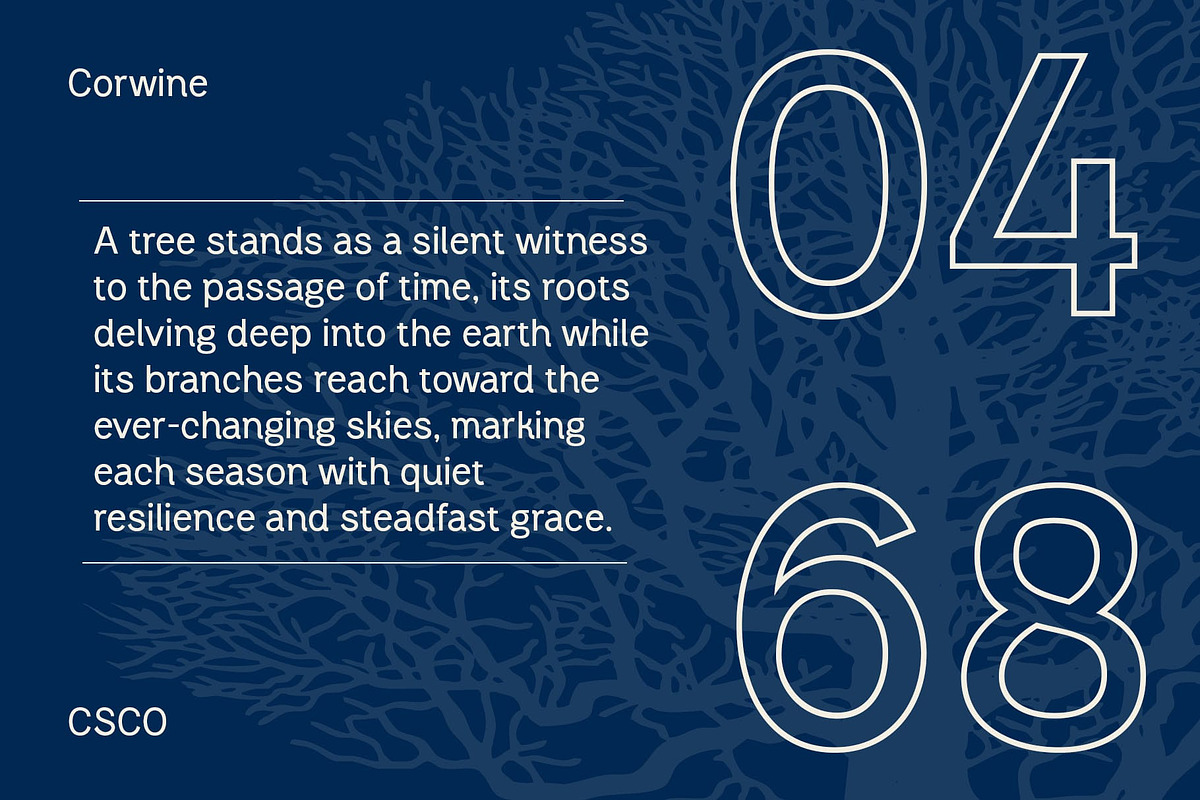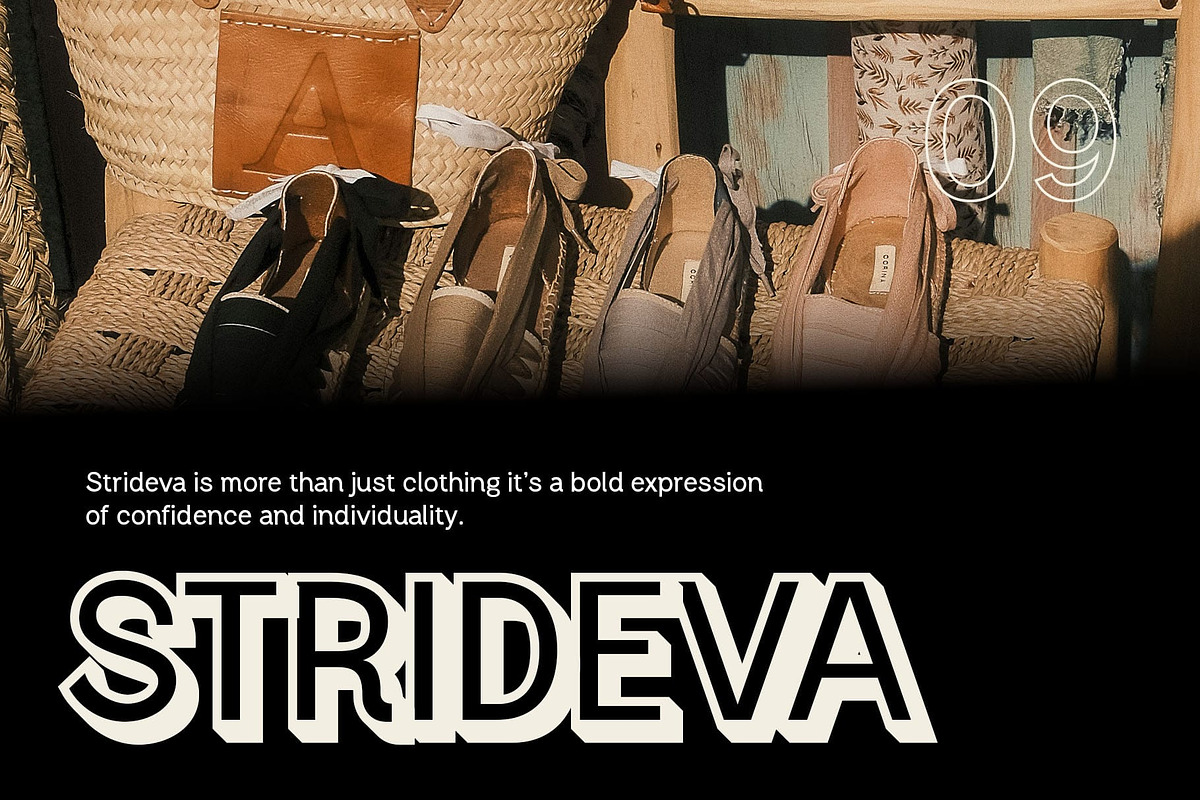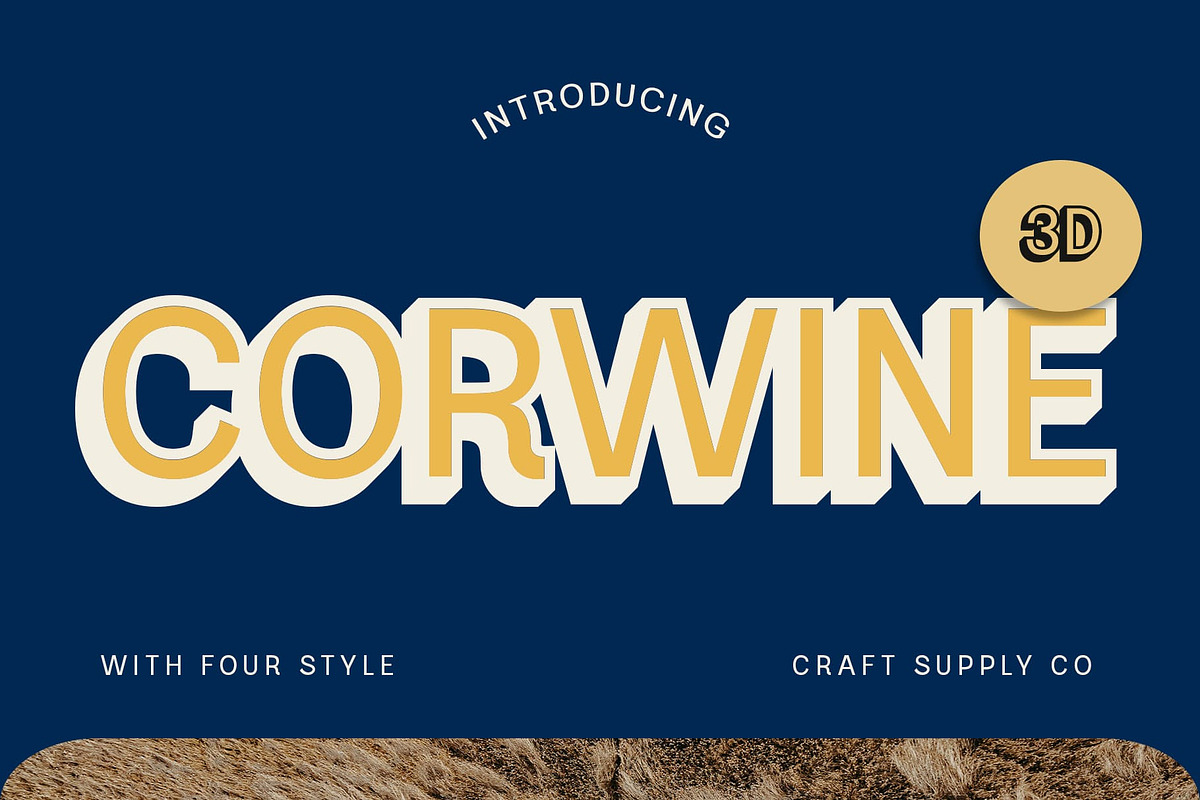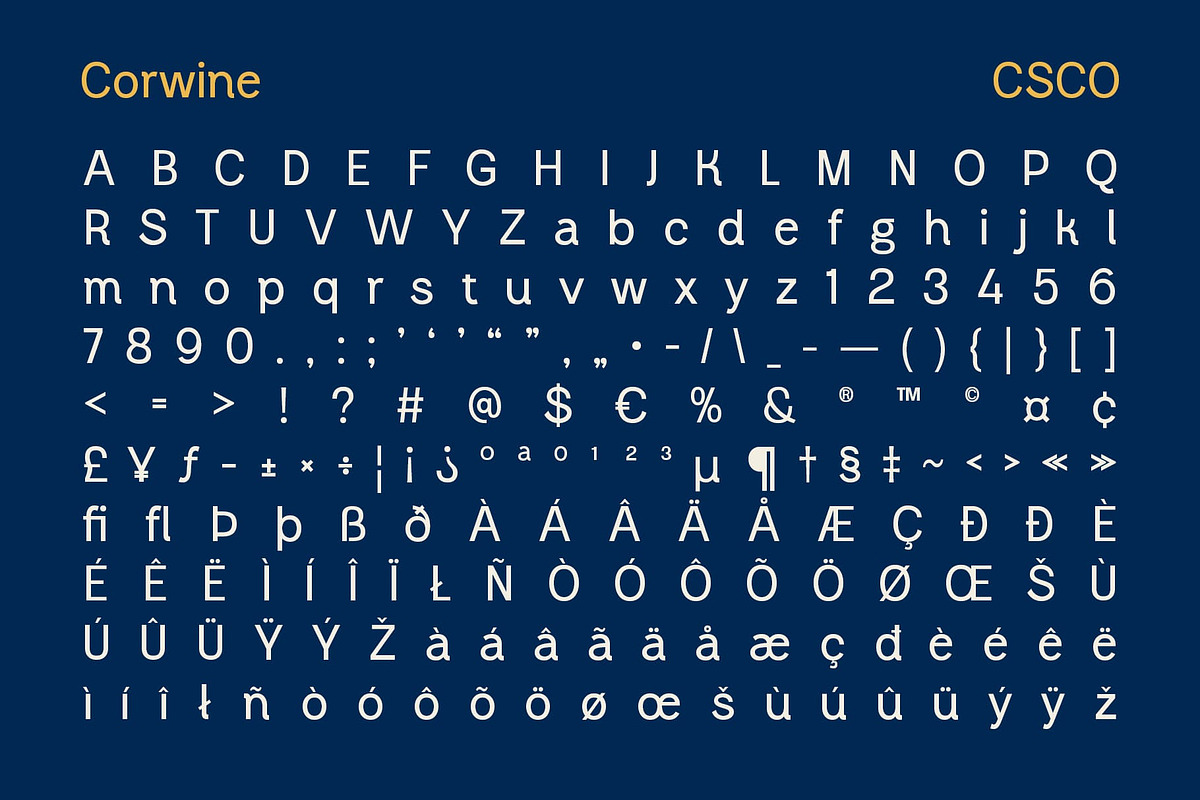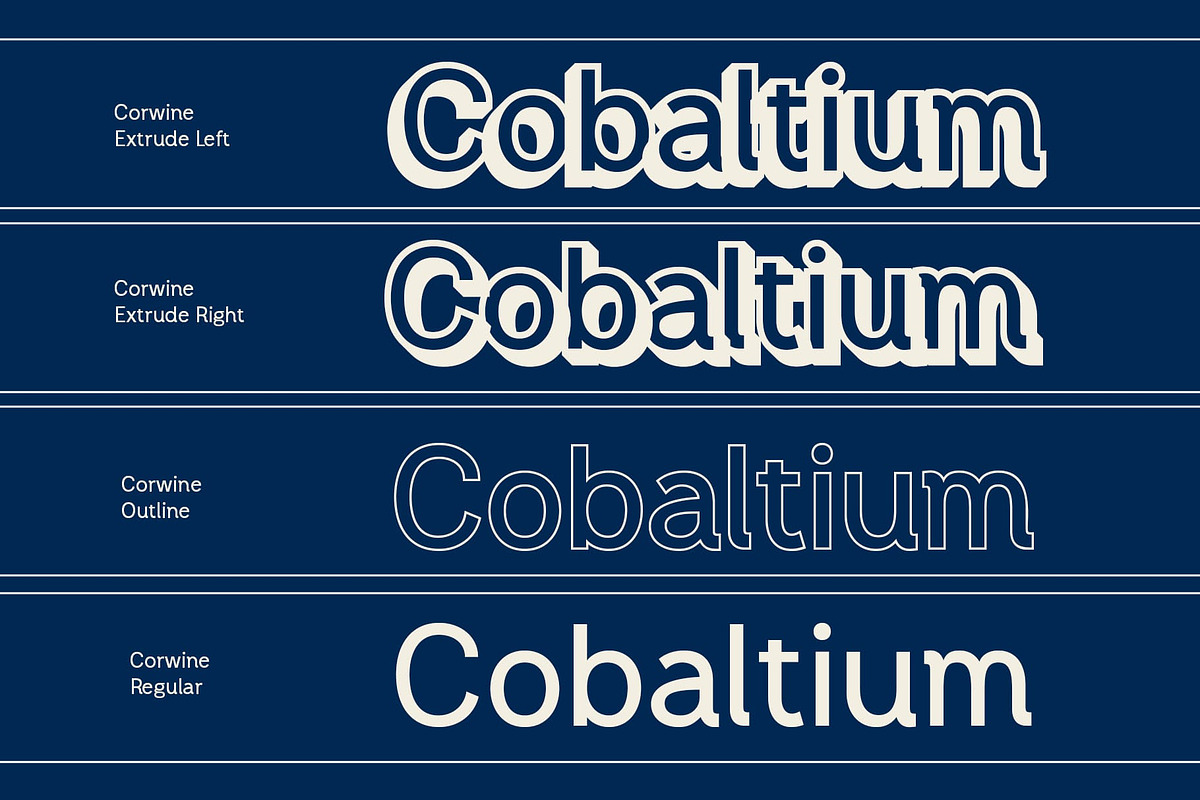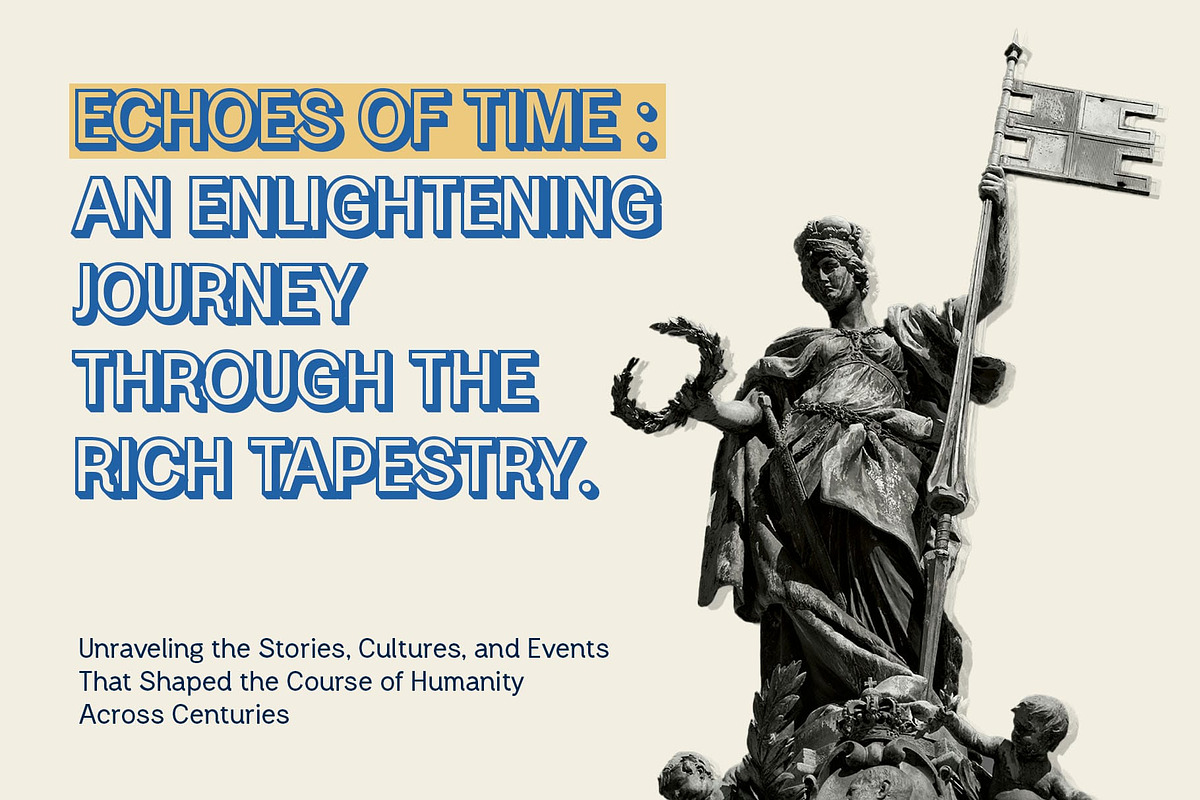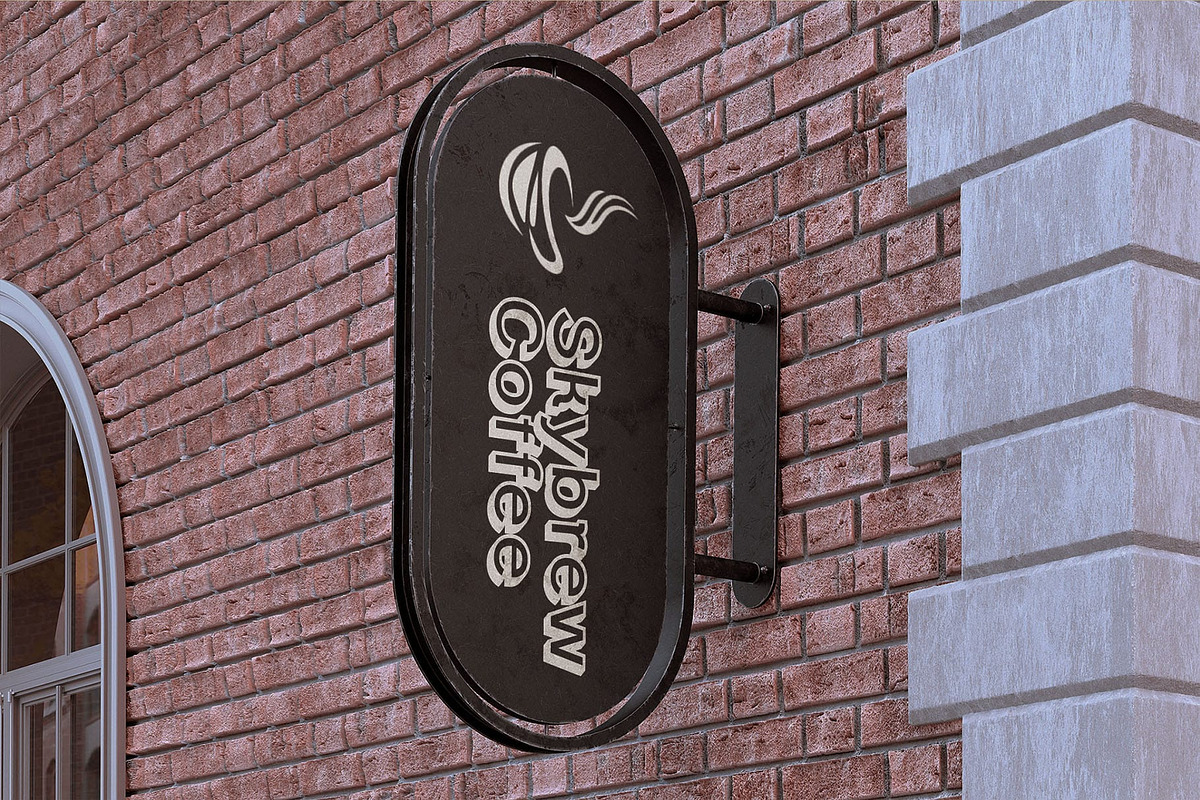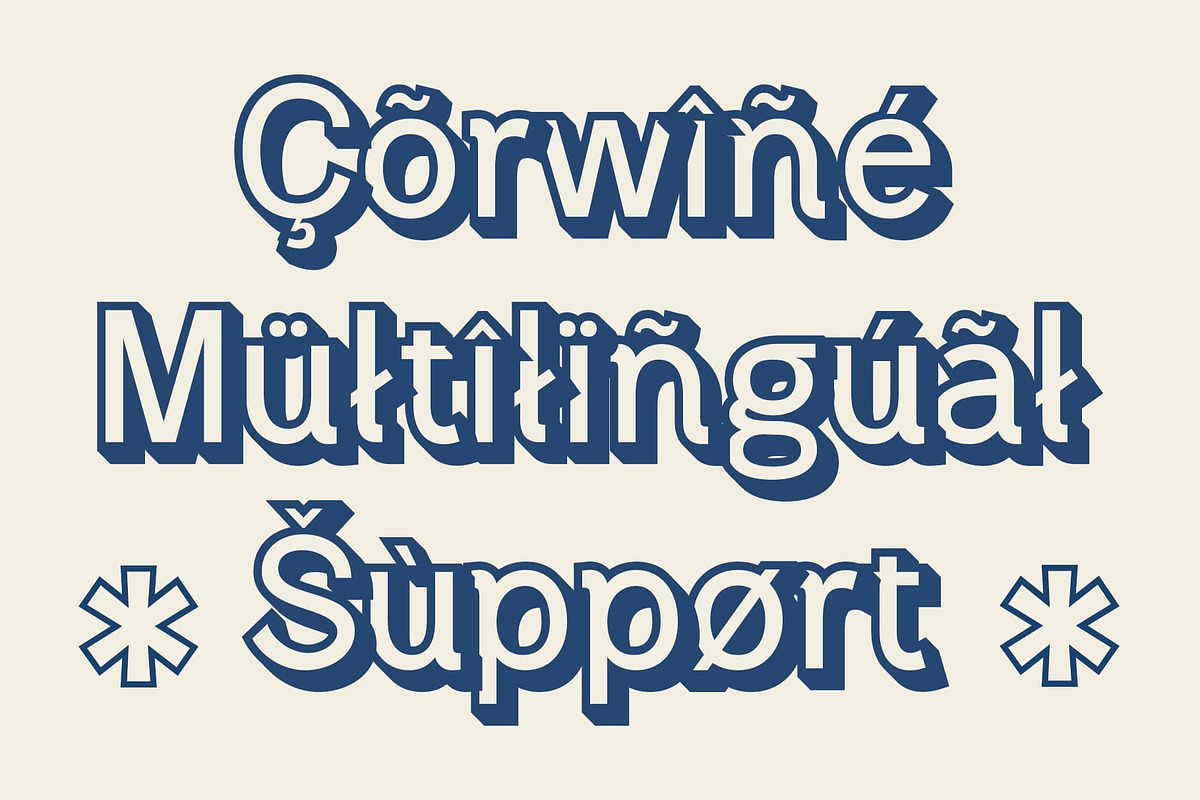
Corwine 3D
Corwine 3D – Modern Sans-Serif Font with Geometric Precision
Futuristic and Bold Design Corwine 3D is a modern sans-serif font that combines the clean precision of geometric shapes with the bold, assertive characteristics of the grotesque style. With its straight lines, sharp angles, and symmetrical forms, this font offers a minimalist yet impactful aesthetic. Its simple and sleek design makes it ideal for contemporary applications where clarity and modernity are paramount.
Enhanced with Dynamic 3D Effects What sets Corwine 3D apart is the integration of dimensional 3D effects, which bring depth and vibrancy to its straightforward design. Subtle shadows and light play across the letterforms, adding layers of visual interest and making the font pop. The 3D aspect introduces a dynamic, lively quality that ensures the font stands out in both print and digital spaces.
Perfect for Professional, High-Impact Designs Designed for versatility, Corwine 3D is perfect for logos, branding, websites, and any project that demands a clean, professional look with a modern twist. Its geometric structure ensures legibility while its 3D effects provide an attention-grabbing quality. This combination of simplicity and dimension makes it ideal for businesses, tech brands, and any creative design that requires a bold yet sophisticated look.
- Corwine Regular
- Corwine Outline
- Corwine Extrude Right
- Corwine Extrude Left